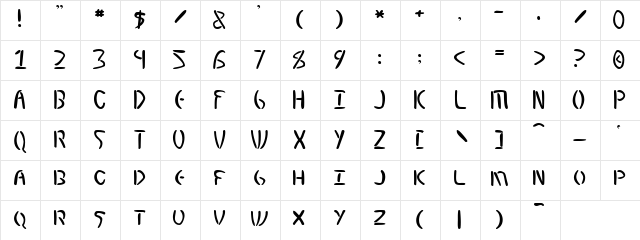
Mystic Etchings Normal Free Font
Mystic Etchings Normal
Mystic Etchings Family
Mystic Etchings Normal
Design Context for Mystic Etchings
Mystic Etchings is a composed and adaptable typeface that performs quietly and consistently across a wide range of design contexts.
Pro Tip: Use Mystic Etchings in both headline and body roles to test its range before committing to a single application.